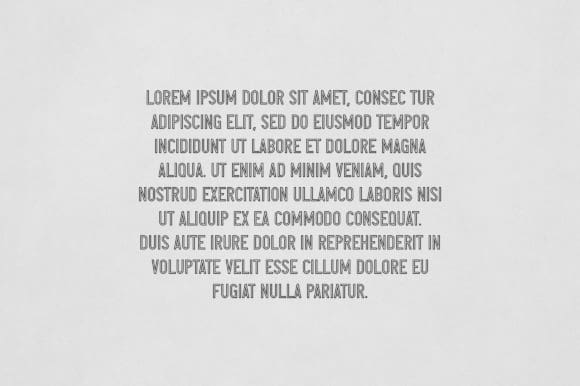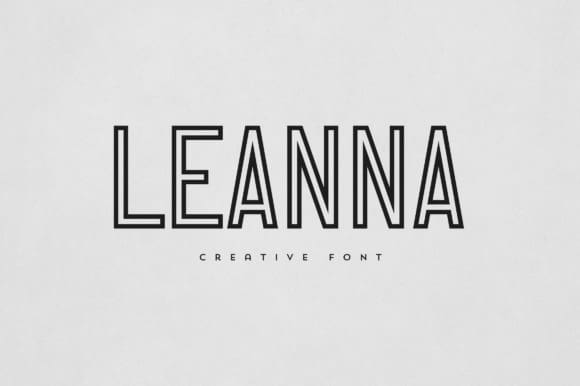
Leanna Font
Leanna Font is an elegant and versatile display font that will make your typography truly unique! It will enchant every logo, branding, headline, or plain text!